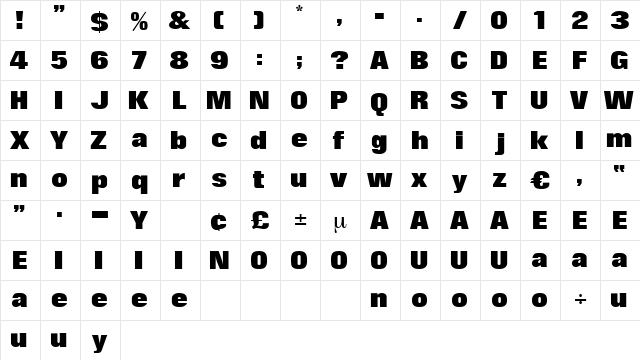
Dakota Regular Font Preview
Dakota Regular
Design Context for Dakota Typeface
Dakota takes a measured approach to typography — its balanced proportions and neutral character make it a reliable workhorse for both digital and print work.